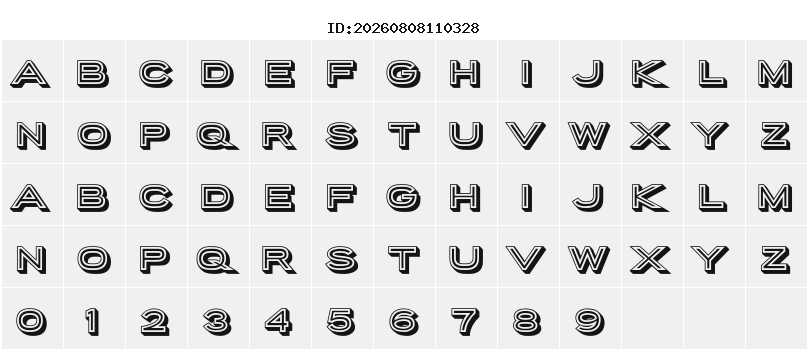
Porter Sans Block Preview
• Font Name: Porter Sans Block
• Designer: Tyler Finck
About Porter Sans Block.otf
Porter Sans Block.otf is a modern, elegant sans-serif font designed for ultimate readability and visual harmony. Perfect for branding, headlines, web design, and print materials.